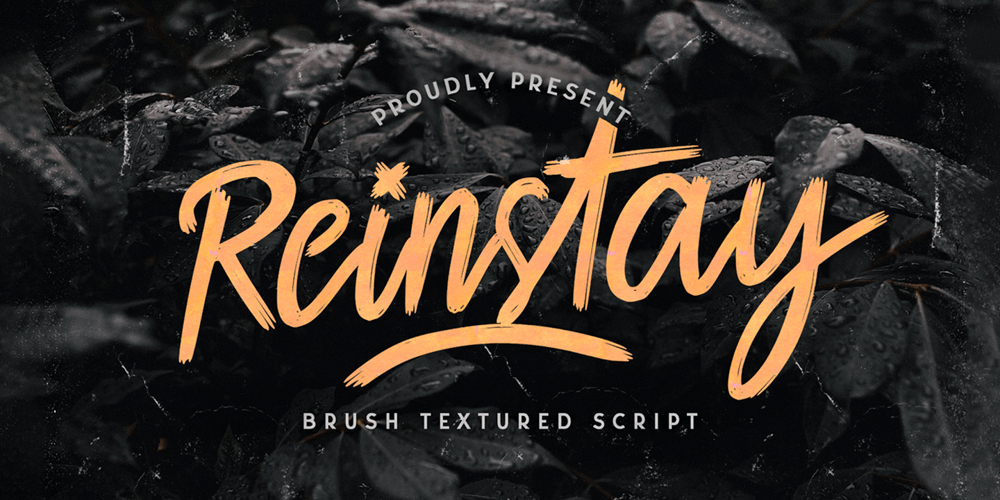
Reinstay
Reinstay font
Reinstay Font Family was designed by Virgiawan Listanto and published by Stringlabs Creative Studio. Reinstay contains 1 styles and family package options. Reinstay is a script font with textured brush style. The Reinstay font made with digital brush pen strokes that making this font look authentic. This font is perfect for fashion brand, wedding invitation, business card, logo brand, signature, and then calligraphy.